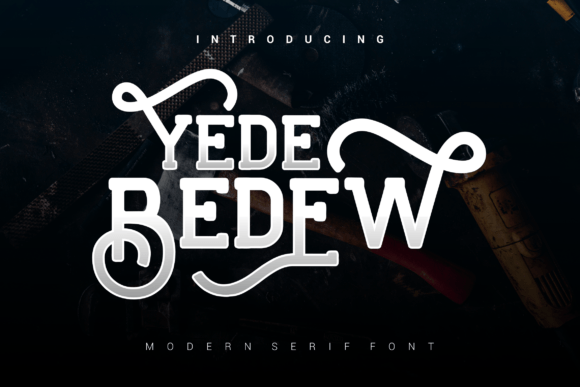
Introducing Yede Bedew – The Serif Font That Embodies Boldness and Authenticity
In a world clamoring for attention, your designs need a voice that resonates with power and character. Yede Bedew, the captivating serif font, emerges as your ultimate ally in crafting visual masterpieces that leave an indelible mark.
Unleash the Essence of Boldness
Yede Bedew's striking personality lies in its unwavering boldness. Each letterform exudes strength and confidence, commanding attention like a beacon of individuality. Whether gracing a striking logo or emboldening headlines, Yede Bedew ensures your message cuts through the noise, leaving an imprint that lingers in the minds of your audience.
Embrace Authenticity in Every Stroke
Beyond its bold demeanor, Yede Bedew embodies authenticity in every meticulously crafted stroke. The font's organic imperfections and subtle variations lend a human touch, evoking a sense of genuine connection with your designs.
Versatile – A Font That Adapts to Your Creative Vision
Yede Bedew's versatility knows no bounds. Its commanding presence shines in branding projects, transforming logos into emblems of power and distinction. It lends an air of sophistication to t-shirt designs, making each piece a statement of individuality. Unleash your creativity in export projects, where Yede Bedew's bold strokes leave a lasting impression.
Exceptional Performance in Diverse Contexts
Yede Bedew thrives in a myriad of contexts, proving its adaptability and resilience. Its captivating strokes lend themselves seamlessly to web design, where they captivate visitors with their undeniable charisma. The font also excels in print media, adding depth and dimension to brochures, posters, and flyers, ensuring your messages resonate with impact.
Yede Bedew – Your Creative Catalyst
Yede Bedew is more than just a font; it's an extension of your creative spirit, a tool that empowers you to manifest your boldest design visions. Its versatility and authenticity make it an indispensable asset in your design arsenal, enabling you to craft designs that command attention, spark conversations, and leave a lasting legacy.